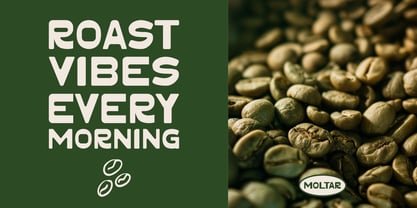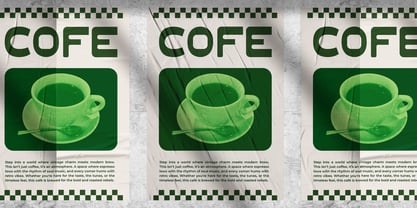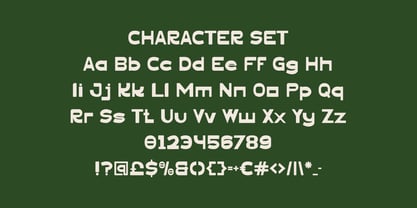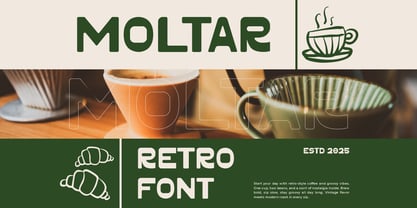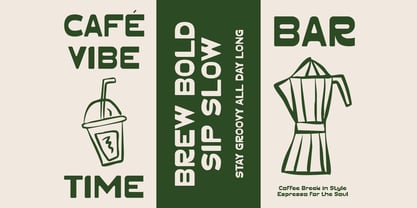
Moltar
by Shanaf
The Moltar Font Family was designed by Yesie Erma Yunita and published by Shanaf. Moltar contains 1 styles. More about this family
Moltar Retro Reverse Contrast Font blends vintage charm with a fresh, modern groove. Each letter is designed with rounded edges, thick strokes, and playful geometry that brings warmth and rhythm to any design. The reverse contrast style gives it a unique, eye-catching balance—thin verticals and heavy horizontals create a dynamic, approachable look. Its proportions are compact and friendly, making text blocks appear bold yet comfortable to read. Moltar Retro Reverse Contrast Font captures the nostalgic essence of mid-century typography while staying relevant for today’s design trends. This typeface works perfectly for coffee shop branding, retro-style packaging, magazine titles, posters, and logo designs. It’s also great for creative projects such as stickers, café menus, invitations, and product labels that want to mix a nostalgic vibe with a clean, modern edge. The playful yet balanced style allows it to shine in both headline and display uses. Moltar Retro Reverse Contrast Font is designed for designers who love expressive typography that feels cozy, bold, and stylishly timeless.
Designers: Yesie Erma Yunita
Foundry: Shanaf